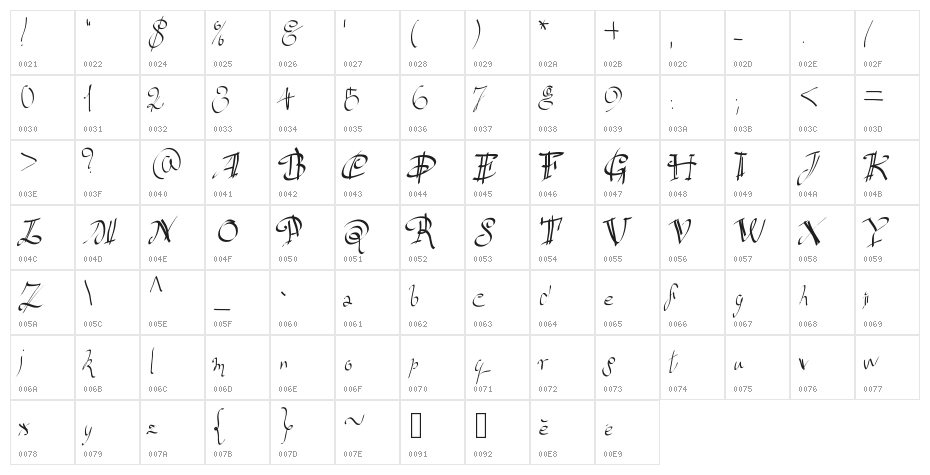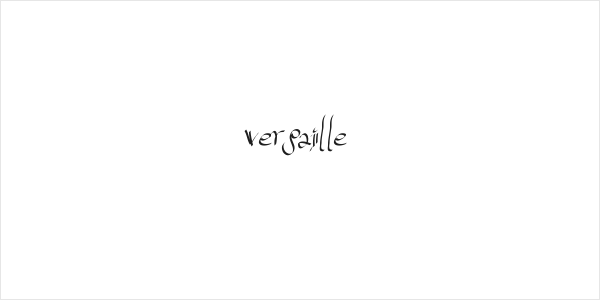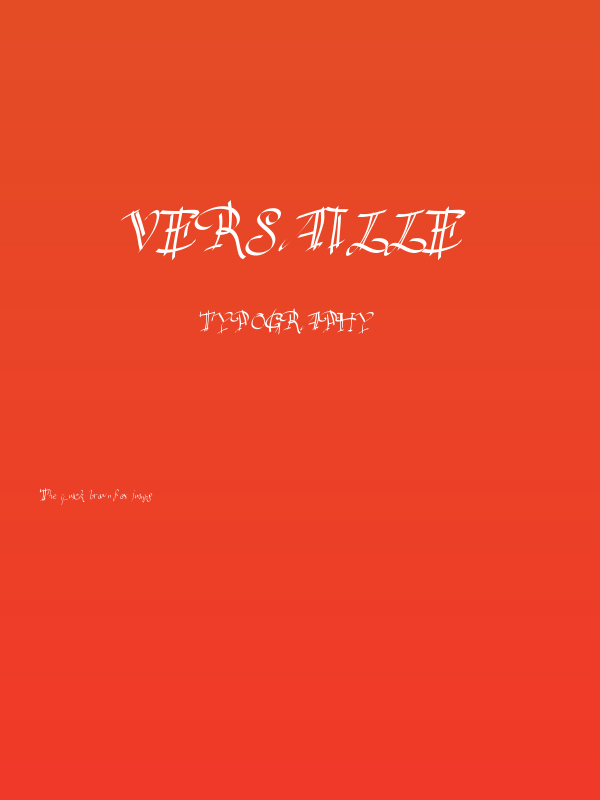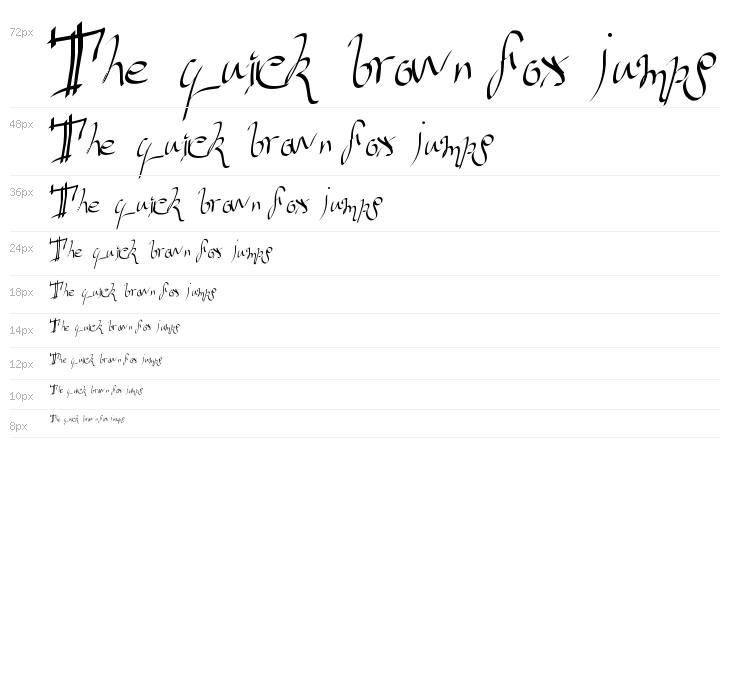
versaille Font
versaille Description
This font exudes an elegant and sophisticated style, characterized by its flowing, cursive script. The letters are artistically crafted with a high degree of flourish and ornamentation, giving it a calligraphic appearance. The strokes vary in thickness, providing a dynamic contrast that enhances its visual appeal. The uppercase letters are particularly elaborate, with sweeping lines and intricate details, while the lowercase letters maintain a graceful continuity. The numerals and special characters are designed to match the overall aesthetic, ensuring a cohesive look across all elements.
| Overall Style | Elegant, Calligraphic |
| Use Case | Logos, Invitations, Decorative Text |
| Proposed Projects | Ideal for wedding invitations, luxury branding, elegant stationery, and artistic projects requiring a touch of sophistication. |